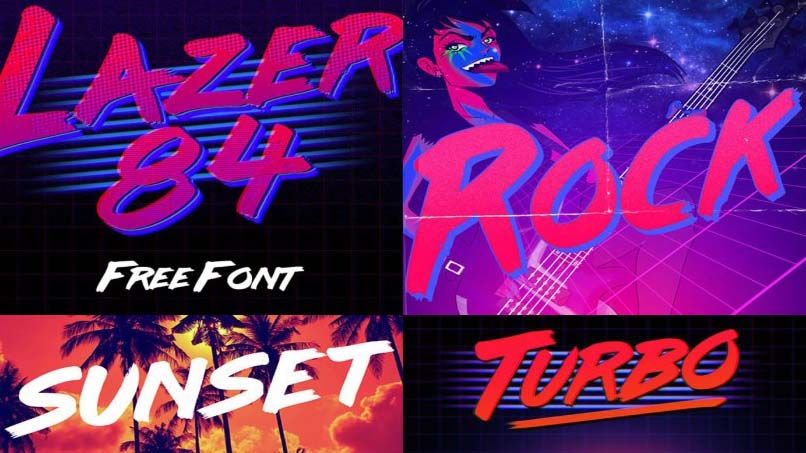
Lazer 84 Font
Lazer 84 Font is the most used font of comic books. It is also used for the copy and paste feature, It is also known as the Razor font. This font has been attractively fashioned via the use of a pointer with a tinny brush on acrylic newspaper. Its appearances are nice in darkish paint colorations like nexa font on hard paper reports.
It is the first otf font, and we discover it irresistible due to its excellent notable styles. Alas, you may most definitely use it in adobe photoshop and illustrator, but, in case you need to build up the general-coloration blessings. Lazer 84 Font Free This font has an elegant look and touches with its threesome of outlines in respectively letter advent. Use it on not unusual to massive sizes for headings, artworks and plenty greater.